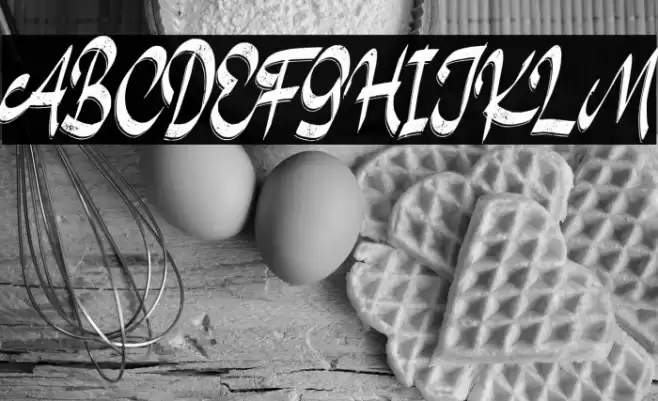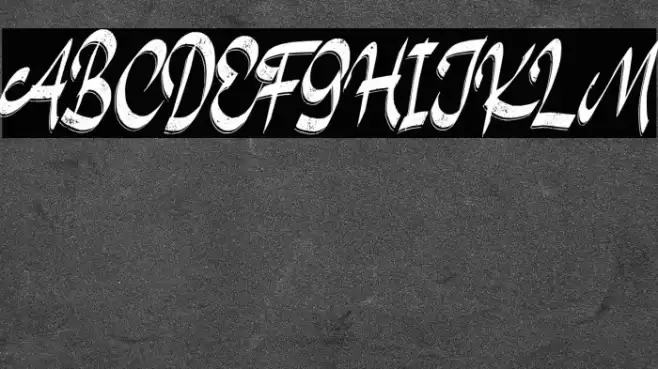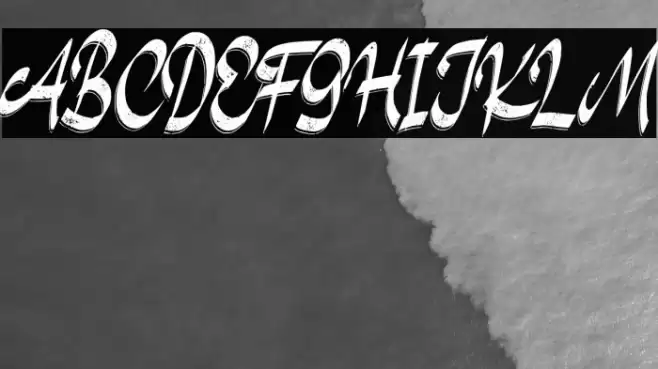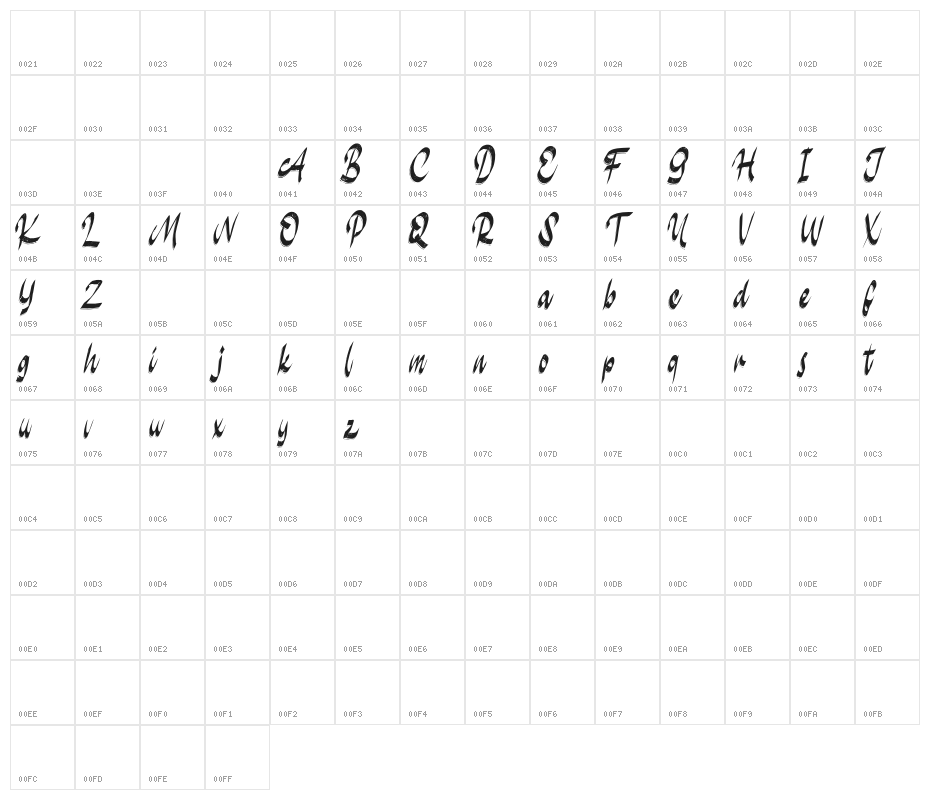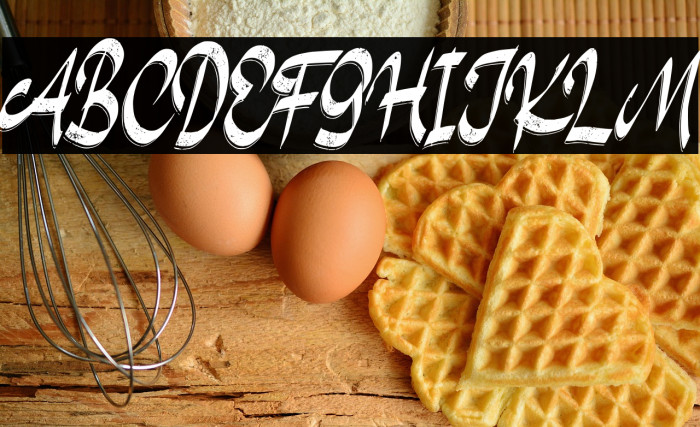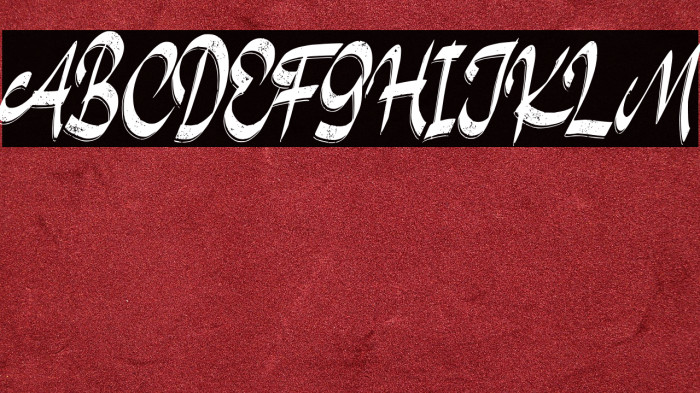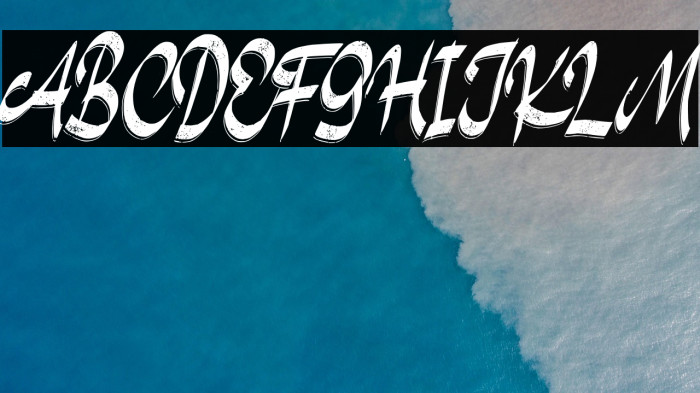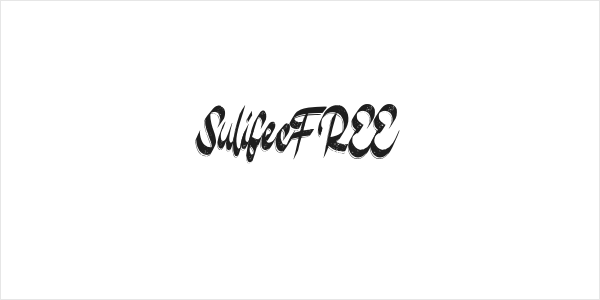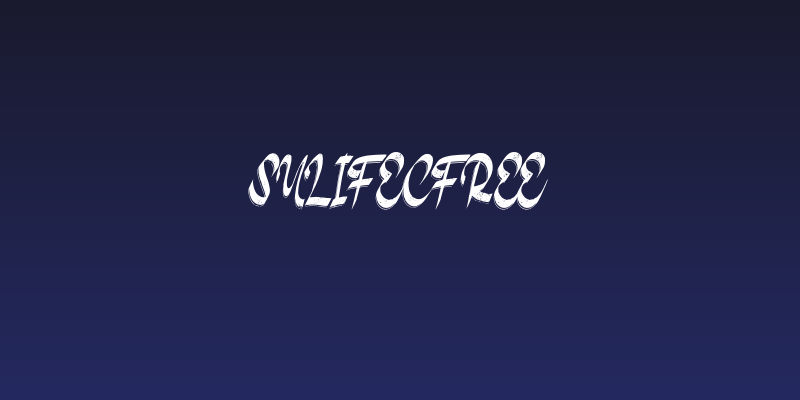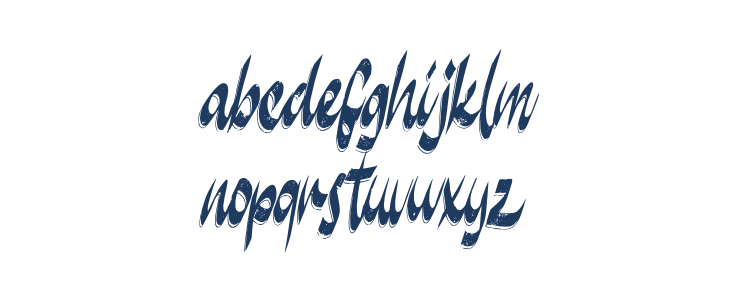
SulifecFREE Font
SulifecFREE Description
This font features a bold, expressive script style with a dynamic and energetic flow. The characters are connected, creating a sense of movement and fluidity. The strokes are thick and have a textured appearance, adding a handcrafted feel. The uppercase letters are tall and slightly slanted, while the lowercase letters maintain a consistent rhythm. The font includes a full set of uppercase and lowercase letters, numbers, and a selection of special characters. Its unique style makes it suitable for creative and artistic projects.
A bold, textured script font with dynamic, flowing characters from Uncategorized fonts.
- Proposed Projects: Ideal for branding, logos, posters, and artistic designs that require a bold and expressive touch.
- Character Spacing: Tight
- Use Case: Logos, Headlines, Artistic designs